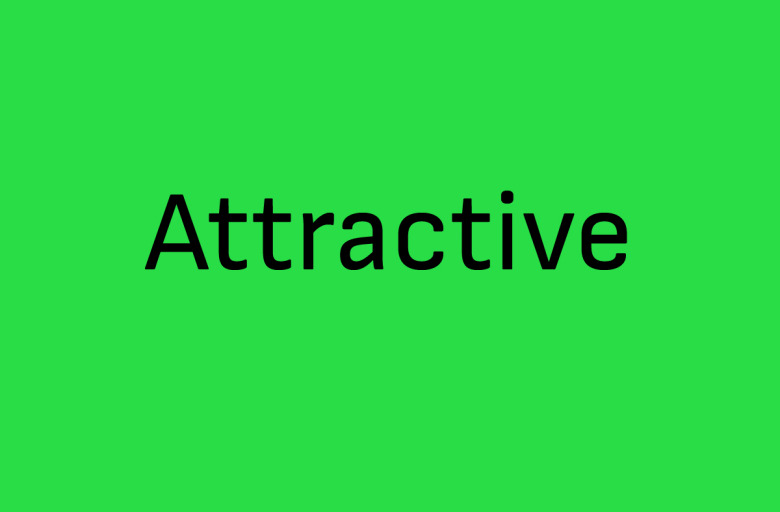
Attractive Font Family
Attractive Font
Introduce to you a Sans Serif font family. Introducing Attractive Font Family! Attractive was designed by Letter Soup. Attractive comes in two styles Regular and Italic with extended coverage of the Latin-, Greek- and Cyrillic Script. The design origins of Attractive are in early-20th centuries technical style aesthetics, but they are combined with nice humanistic characters and details. The shapes are optically corrected, yet retain an uncut charm. The typeface works is an exellmletn choose for small text sizes, books and magazines, branding, posters, as well as web and screen design…
Attractive Font Family